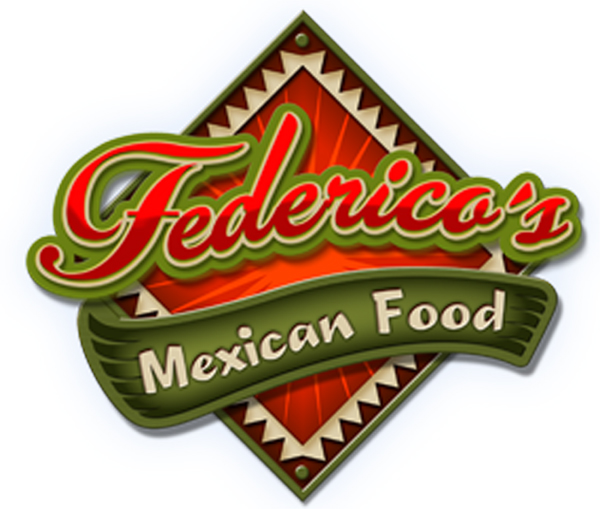
Need the Federico's font. I know it is simple but my feels like it is in the clouds and I cant think.
What throws me off is the "o" and "s". None seem to fit what they have.
the o and s are most definitely part of las vegas fabulous - I believe the cap is Alison and the rest is Las Vegas Fabulous, as Tiki identified